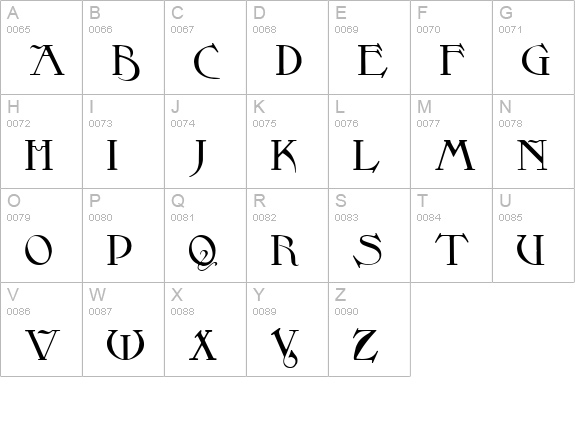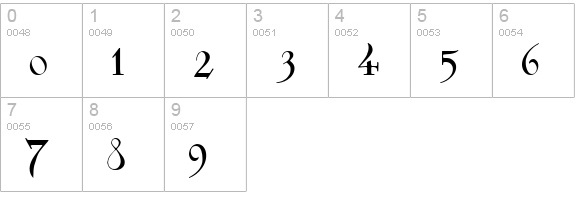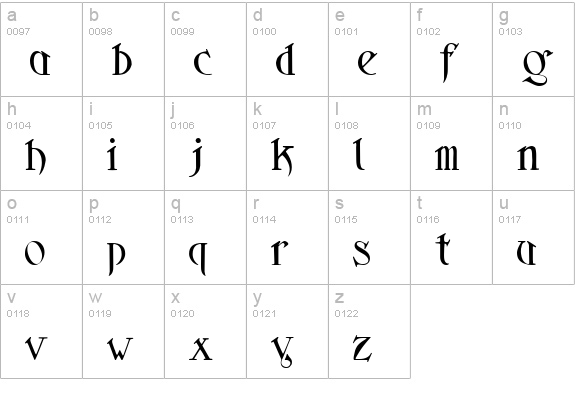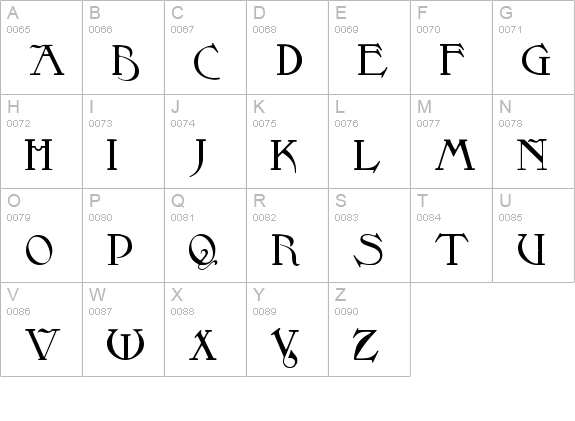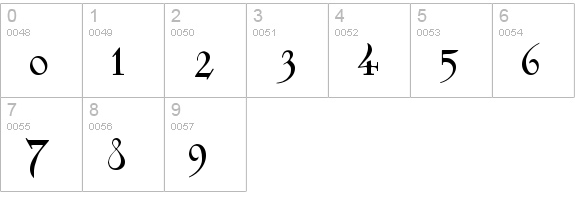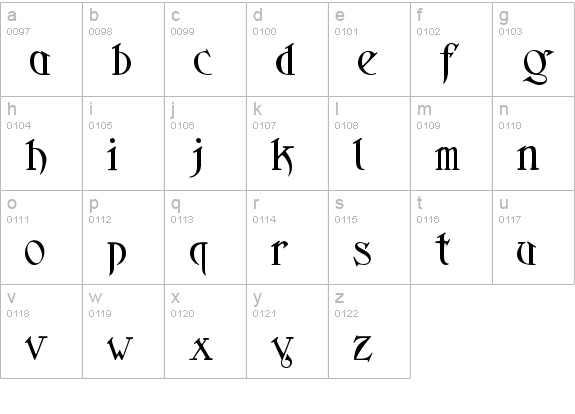
Sidhe Noble Font Details
Sidhe Noble is a majestic and enchanting font that captures the ethereal beauty of the mythical Sidhe creatures. With its intricate and graceful letterforms, this font transports you to a magical realm where fairies and fantasy intertwine. Designed with meticulous attention to detail, Sidhe Noble exudes an air of elegance and sophistication. Each letter is meticulously crafted, with delicate curves and fine lines that create a sense of otherworldly charm. The letters seem to dance on the page, evoking a sense of whimsy and wonder. This font is perfect for any project that requires a touch of enchantment. Whether you are designing a book cover, creating invitations for a fairy-themed event, or adding a touch of magic to your branding, Sidhe Noble will elevate your designs to new heights. One of the most remarkable aspects of Sidhe Noble is that it is available for free! That's right - this extraordinary font can be freely downloaded at FontsMarket.com. Now, you can bring the allure of the Sidhe creatures to your projects without breaking the bank. With its freely available download, Sidhe Noble offers accessibility to all designers and creatives. No matter your budget or project size, you can now enjoy the allure of this captivating font. So, why wait? Unleash your creativity and let Sidhe Noble cast its spell on your designs today!